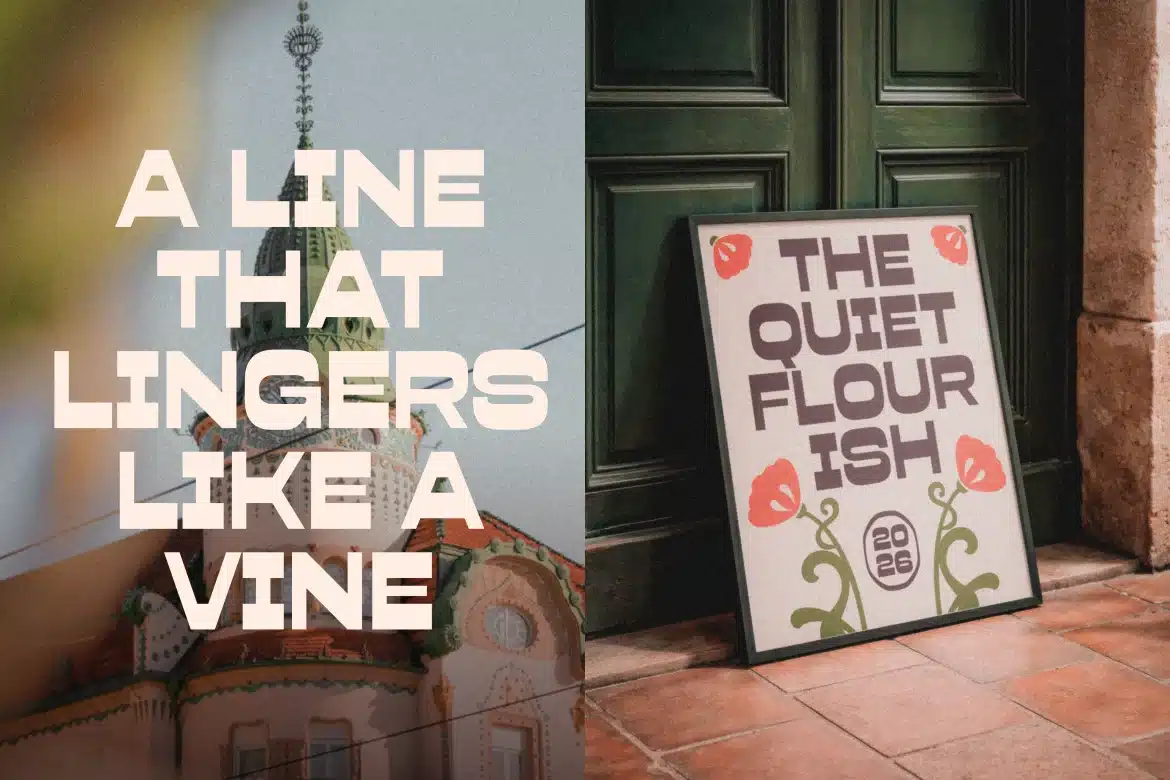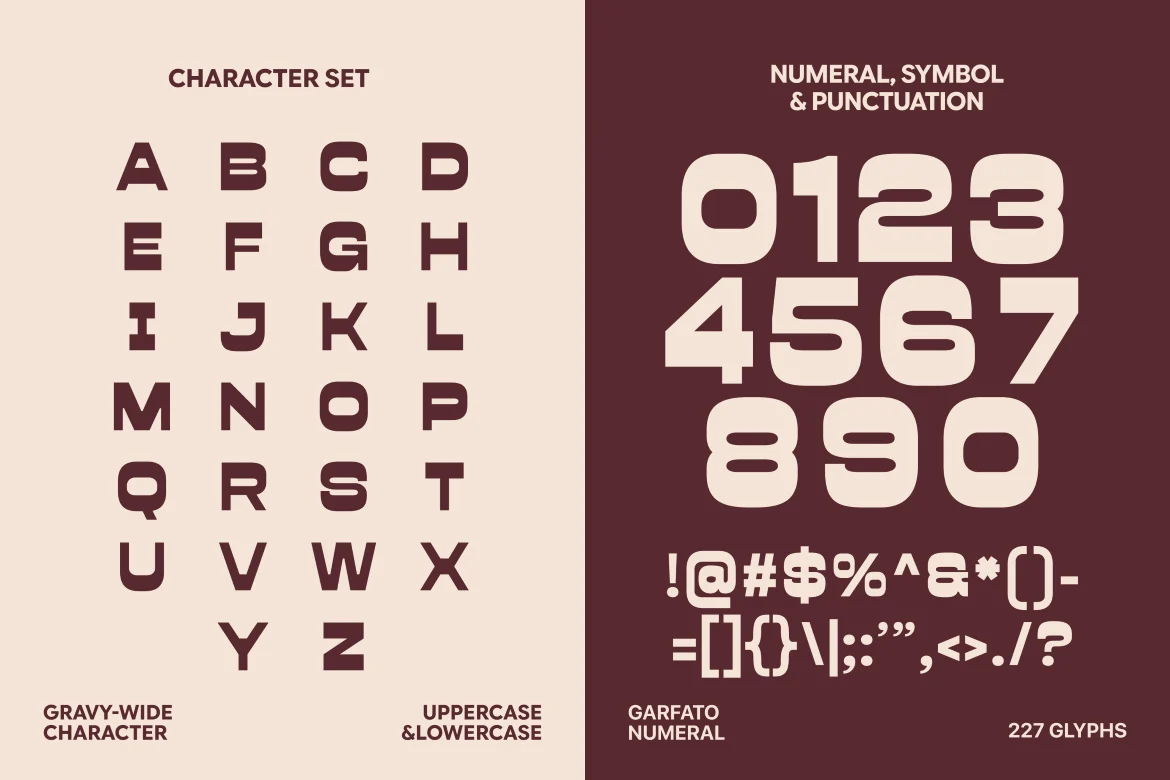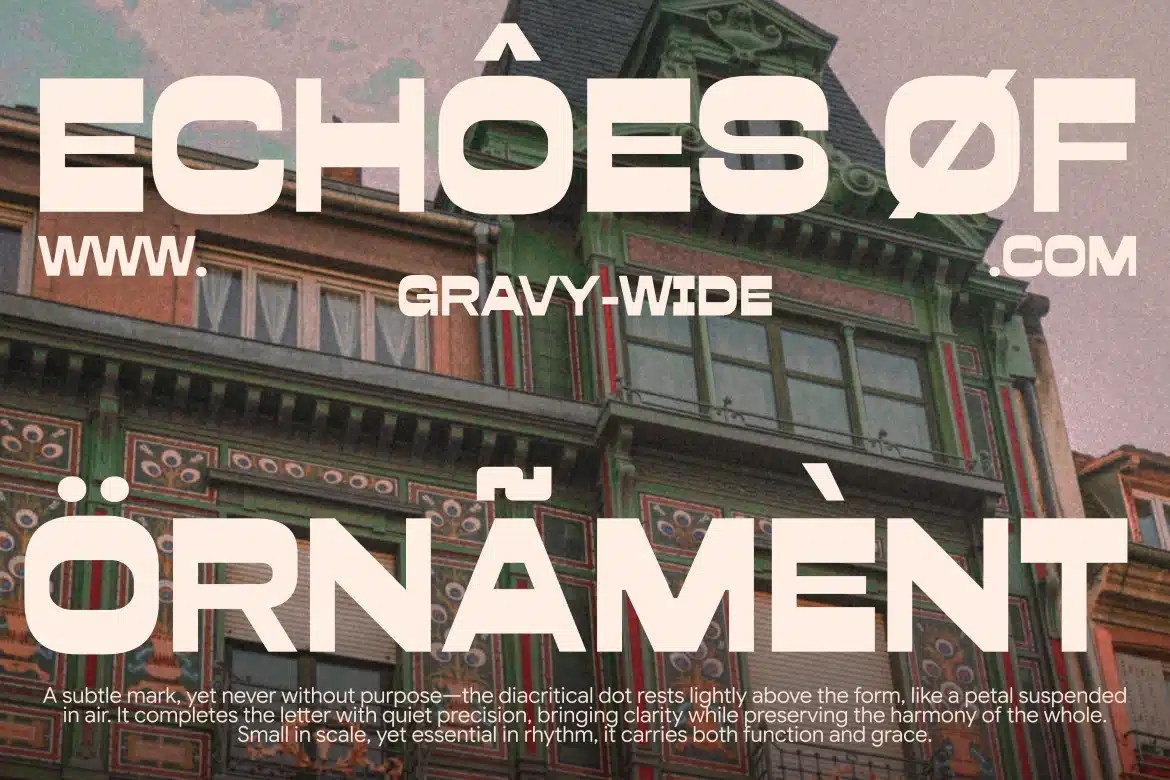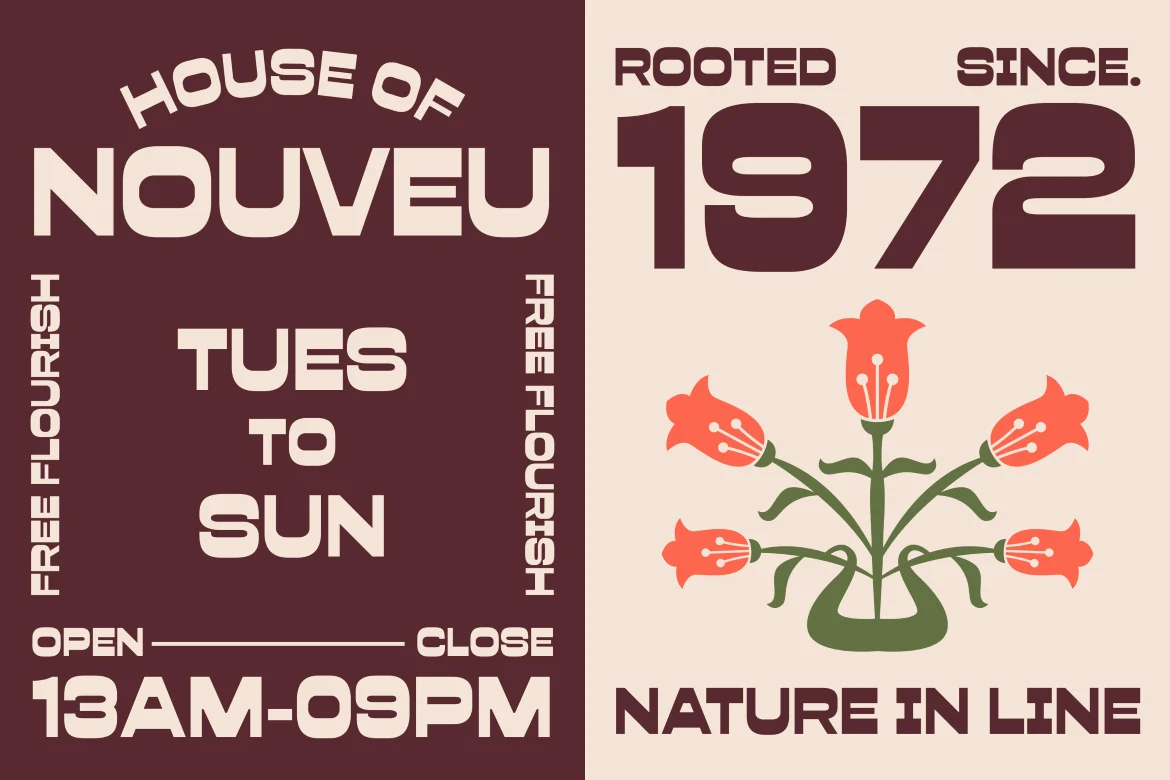
Gravy Wilde – Sans Serif Font
Gravy Wilde is a bold display font inspired by retro signage and vintage aesthetics. With chunky letterforms, smooth curves, and playful character, it’s perfect for branding, posters, packaging, and editorial design. Designed to stand out, it brings nostalgic charm and modern clarity to any creative project or visual identity system.